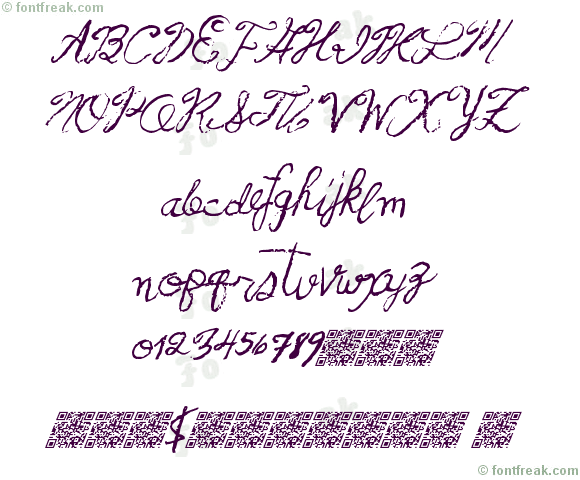
FrenchPirates
FrenchPirates by XEROGRAPHER FONTS is an artistic display font that exudes a sense of whimsy and charm. This font features a unique script style characterized by its flowing strokes and delicate curves, reminiscent of handwritten calligraphy. The stroke weight varies, providing an engaging contrast that adds to its visual appeal. The overall spacing is generous, allowing each character to breathe and ensuring legibility even in more intricate designs. Decorative elements, such as playful swirls and loops, lend a casual yet sophisticated touch, making it ideal for various creative applications.
The FrenchPirates font is particularly well-suited for a range of use cases. It can enhance wedding invitations, creating an elegant atmosphere that complements romantic themes. Additionally, it works wonderfully for movie posters, especially for films with a whimsical or adventurous tone, where the font can evoke a sense of excitement. Restaurant menus can also benefit from this font, as it adds a creative flair that invites diners to explore the culinary offerings. Other potential applications include branding materials for boutique shops or artisan markets, where a unique font can help convey the brand’s personality.